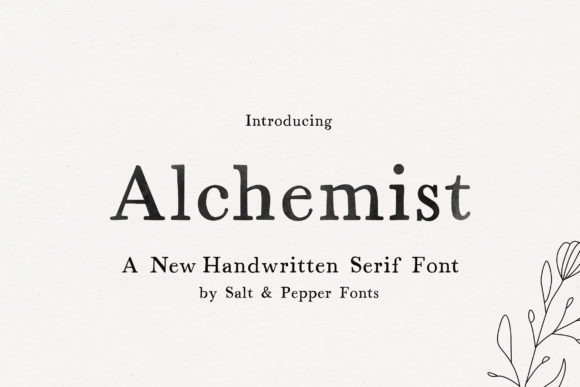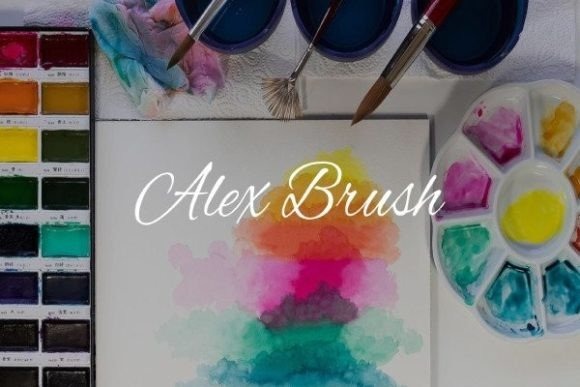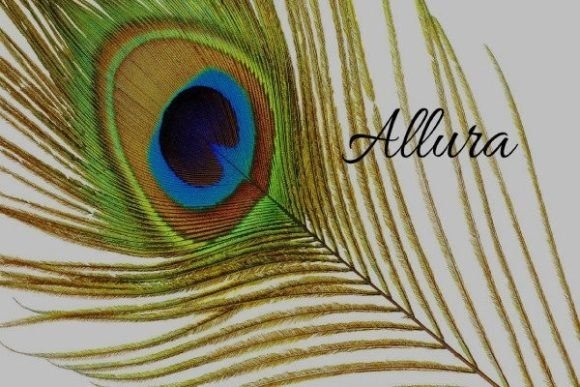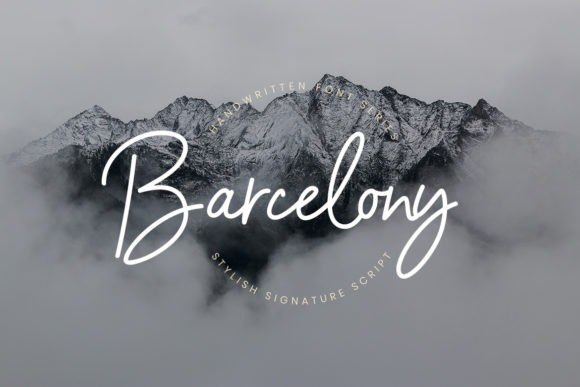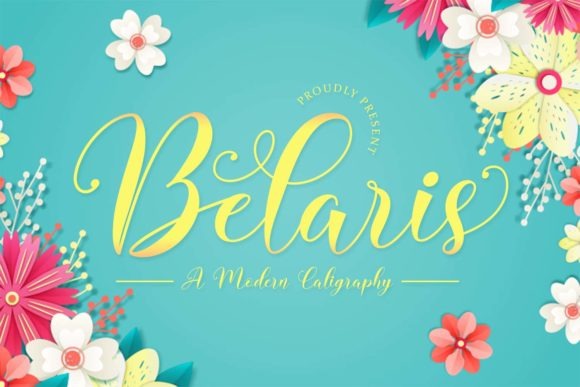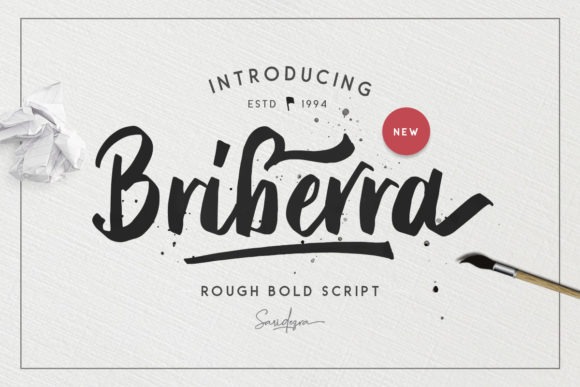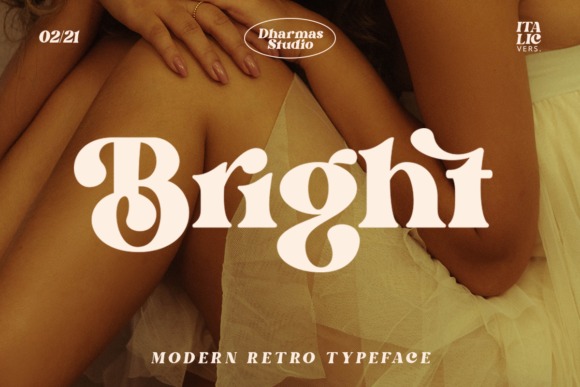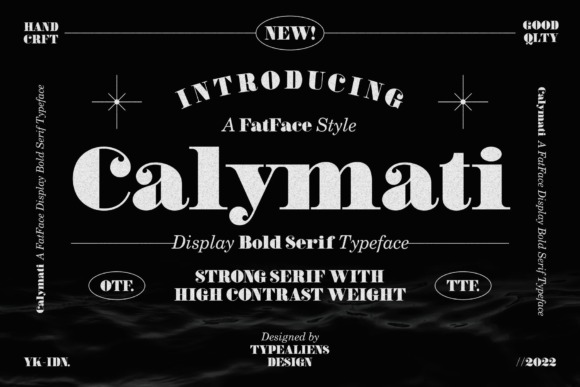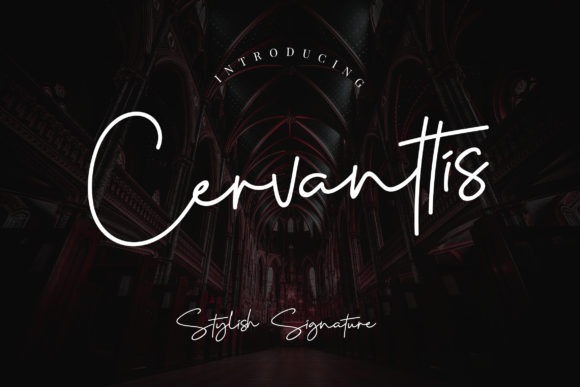
Choosing the Best Canva Fonts for Professional Branding
The best Canva fonts for professional branding aren't always the safest or most corporate-looking typefaces. I look for fonts with enough personality to make a brand recognizable while still staying readable across logos, social graphics, packaging, presentations, and other everyday Canva designs.
For this list, I've mixed refined serifs, clean sans serifs, signature scripts, and a few stronger display faces. The goal is versatility rather than collecting 25 fonts that all create the same polished-luxury aesthetic.
If you want a short answer: Devroye, Soria, Sauvage, Evogria, and Lanche are my strongest picks for restrained professional branding, while Barcelony, Allura, Cervanttis Script, and Alex Brush are better when a brand needs a personal signature accent. For most Canva brand systems, I would use the decorative font for logos or headlines and pair it with a simpler typeface for supporting copy.
| Font | Best for | Type |
|---|---|---|
| Devroye | Luxury and wellness brands | Serif |
| Soria | Beauty and editorial branding | Serif |
| Sauvage | Minimal premium identities | Sans serif |
| Evogria | Modern corporate logos | Geometric sans serif |
| Lanche | Fashion and packaging | Serif |
| Alchemist | Artisan and apothecary brands | Handwritten serif |
| Jolie | Minimal creative studios | Serif |
| Bright | Retro-modern branding | Serif |
| Calymati | Heritage-style labels | Vintage serif |
| Chinook | Boutiques and signage | Bold display |
| Mantana | 1970s-inspired brands | Display |
| Magical Source | Playful premium brands | Decorative serif |
| Corona | Vintage display identities | Display |
| Clattering | Expressive lifestyle brands | Brush script |
| Barcelony | Personal and beauty branding | Signature script |
| Cervanttis Script | Hospitality and packaging | Handwritten script |
| Satisfy | Feminine lifestyle branding | Script |
| Briberra Script | Bold creative campaigns | Brush script |
| Serendipity | Artist and portfolio branding | Hand-drawn script |
| Alex Brush | Elegant logo accents | Calligraphy |
| Insolente | Independent creative brands | Handwritten script |
| Belaris | Friendly boutique identities | Script |
| Wild & Brave | Outdoor and artisan brands | Brush script |
| Allura | Luxury feminine branding | Script |
| Mallicot | Fashionable display logos | Script |
25 Best Canva Fonts for Professional Branding
1. Devroye
Devroye is a slim, sophisticated serif that I would consider for brands that want refinement without a heavily ornamental look. Its restrained structure makes it especially appealing for wellness studios, boutique consultants, premium service providers, and understated luxury identities.
My favorite use would be a wordmark or high-contrast headline paired with a plain sans serif for captions and body copy. Because the lettering is comparatively delicate, I'd avoid relying on it for tiny mobile text or information-heavy graphics.
Best for: luxury services, wellness branding, editorial logos
Key features: refined serif construction, slim proportions, sophisticated personality
2. Soria
Soria is an elegant serif influenced by Didot-style contrast and Art Nouveau character, making it a strong option for beauty, skincare, fashion, and editorial branding. It has enough visual drama for a logo while remaining much more controlled than an elaborate display face.
I'd use Soria when the desired impression is polished and fashion-conscious rather than warm or handmade. Thin details deserve breathing room, so this is a font I'd reserve for larger headings, packaging names, or logo treatments rather than long paragraphs.
Best for: beauty brands, fashion identities, editorial graphics
Key features: high-contrast serif, Art Nouveau influence, elegant vertical form
3. Sauvage
Sauvage is a refined sans serif that suits brands wanting a clean, premium identity without falling back on a completely neutral corporate font. Its relatively thin, consistent strokes make it particularly appealing for photography, architecture, fashion, and personal-brand wordmarks.
This is one of my picks for minimalist Canva layouts because the lettering can leave plenty of visual space around photography. For very small copy, however, I'd switch to a more conventional text face and keep Sauvage as the recognizable brand layer.
Best for: photography, fashion, minimalist brands
Key features: clean sans serif, slim strokes, premium visual tone
4. Evogria
Evogria is a geometric sans serif with thick lettering and a confident silhouette, making it one of the strongest options here for modern business branding. I'd consider it for technology, fitness, consulting, property, or product brands that need authority without looking overly traditional.
Its boldness gives short names and punchy headlines immediate presence in Canva. That same weight can feel heavy when repeated through a full design, so I'd contrast it with a lighter supporting typeface rather than making every text element Evogria.
Best for: modern businesses, bold wordmarks, digital campaigns
Key features: geometric structure, thick strokes, confident sans-serif styling
5. Lanche
Lanche is a creative serif with sharp, overlapping details that give otherwise elegant lettering a more distinctive identity. I like it for fashion labels, men's grooming brands, creative agencies, and premium packaging that needs a recognizable typographic hook.
Because its appeal comes from those unusual letter shapes, I'd keep surrounding layouts restrained. It is better suited to logos, titles, and short packaging text than dense paragraphs where the distinctive structure could become distracting.
Best for: fashion branding, packaging, creative studios
Key features: sharp serif details, distinctive overlaps, elegant display character
6. Alchemist
Alchemist is a handwritten serif with a typewriter-like personality that can make an otherwise polished brand feel more tactile and human. I would use it for contemporary apothecaries, natural skincare, handmade products, specialty coffee, or creative personal brands.
This isn't my pick for conservative corporate work, but it is useful when professionalism needs to coexist with an artisan feel. Pairing it with a very clean sans serif can keep the identity from drifting too far into rustic territory.
Best for: apothecary brands, artisan packaging, creative businesses
Key features: handwritten serif, typewriter character, organic visual texture
7. Jolie
Jolie is a minimalist serif with long, thin lines that can give creative branding a sleek editorial finish. It makes sense for photographers, production studios, boutique beauty businesses, stylists, and brands built around restrained monochrome layouts.
I especially like this type of font for large Canva covers where the typography can breathe over a simple image or dark background. Its fine strokes are less convincing at tiny sizes, so a sturdier companion font should handle captions and practical information.
Best for: creative studios, photography, minimalist beauty brands
Key features: thin serif lines, editorial appearance, clean display styling
8. Bright
Bright is a bold serif that blends contemporary branding energy with a noticeable retro flavor. I see it fitting creative agencies, podcast identities, lifestyle companies, independent retail brands, and social campaigns that need more personality than a restrained luxury serif provides.
I'd reach for Bright when a brand should feel confident and approachable rather than formal. Its stronger personality means it can date a visual identity faster than a neutral sans serif, so I'd make sure the retro influence genuinely matches the brand strategy.
Best for: lifestyle brands, podcasts, retro-modern campaigns
Key features: bold serif styling, playful proportions, retro influence
9. Calymati
Calymati is a bold vintage-style serif with curved forms and enough decorative detail to produce convincing heritage-inspired branding. My pick would be specialty food, barbershop, apparel, hospitality, or premium label designs where a classic badge aesthetic is part of the visual story.
It has more character than I'd want for a general professional-services brand, but that is precisely why it can be memorable in the right niche. Let Calymati dominate one key element rather than surrounding it with competing vintage fonts.
Best for: heritage labels, apparel, vintage hospitality branding
Key features: thick serif forms, curved details, strong vintage personality
10. Chinook
Chinook is a bold display font that sits between vintage personality and contemporary boutique branding. Its substantial letterforms can carry store signs, promotional graphics, apparel designs, and logo badges without disappearing against busy Canva layouts.
I would choose Chinook for a brand that wants confidence and character more than delicacy. Because bold display typography can quickly dominate a design, the rest of the font system should be quiet, simple, and noticeably lighter.
Best for: boutiques, signage, branded merchandise
Key features: bold characters, vintage-modern balance, strong display presence
11. Mantana
Mantana is a funky, bold display font with a strong 1970s influence. I'd shortlist it for restaurants, music projects, creative retail, beverage brands, or youth-focused businesses that want a retro visual identity without leaning into distressed textures.
This font is intentionally expressive, so I wouldn't call it universally professional. It becomes a professional branding tool when the retro aesthetic is deliberate and consistently supported by the brand's colors, photography, spacing, and secondary type.
Best for: restaurants, music brands, retro retail
Key features: 1970s influence, bold display shapes, energetic personality
12. Magical Source
Magical Source is a playful serif with decorative swashes and glyphs, aimed at brands that need charm without turning completely cartoonish. I would consider it for children's boutiques, whimsical event businesses, story-driven products, or imaginative lifestyle brands.
It is more niche than my top corporate picks, but it can create a far more ownable identity for the right audience. I'd keep the swashes concentrated in the logo or major headline and use straightforward typography everywhere customers need to read quickly.
Best for: children's brands, whimsical events, playful retail
Key features: decorative serif, swashes, imaginative glyph styling
13. Corona
Corona is a vintage-style display font with distinctive lettering that can give a logo an established, crafted appearance. It fits brand concepts involving heritage, entertainment, food and beverage, apparel, or nostalgic packaging particularly well.
I'd treat Corona as a statement typeface, not an all-purpose brand font. When used sparingly on a wordmark or campaign heading, it has far more impact than when its decorative character is repeated across every Canva text box.
Best for: heritage branding, nostalgic packaging, display logos
Key features: vintage styling, distinctive characters, strong display emphasis
14. Clattering
Clattering is a handmade brush script with free-flowing strokes and noticeable contrast between thick and thin curves. I like it for lifestyle, food, creative-services, event, and personal brands that need something more expressive than an immaculate signature font.
Its energy is useful for short logo names and promotional headlines, but I'd avoid it for dense copy or very formal industries. A geometric sans serif beside Clattering can give the handmade lettering enough structure to still feel intentional.
Best for: lifestyle branding, creative services, expressive campaigns
Key features: handmade brush strokes, thick-thin contrast, relaxed movement
15. Barcelony
Barcelony is a smooth signature script with a monoline feel that suits personal brands especially well. I'd use it for photographers, beauty professionals, coaches, wedding businesses, or boutique service providers that want the logo to resemble a polished handwritten signature.
This is one of the scripts I'd keep almost entirely out of body text. Its strength is the personal impression it creates in a name, watermark, or short accent, while a neutral sans serif can handle practical communication.
Best for: personal brands, beauty businesses, photography
Key features: signature style, smooth monoline feel, handwritten personality
16. Cervanttis Script
Cervanttis Script is a natural-looking handwritten typeface with deliberately varied strokes that make it feel less mechanical than pristine calligraphy. That character suits restaurants, boutique hospitality, wine-related branding, specialty foods, and premium product packaging.
I'd choose Cervanttis when a brand story depends on craftsmanship or personal service. The irregularity creates authenticity, but it also makes the font less appropriate for small labels containing ingredients, pricing, or other information that needs instant clarity.
Best for: hospitality, food packaging, artisan brands
Key features: natural handwriting, varied strokes, sophisticated informal tone
17. Satisfy
Satisfy is a connected script with a distinctly feminine and romantic personality. I see it fitting bridal businesses, florists, beauty services, personal stationery, boutique gifting, and lifestyle brands that want warmth rather than a sharp luxury aesthetic.
The connected letters create an appealing logo rhythm, but this is another case where restraint matters. I would use Satisfy for the brand name or brief accent copy and introduce a clean supporting font for menus, prices, captions, and calls to action.
Best for: bridal businesses, florists, feminine lifestyle brands
Key features: connected script, romantic tone, fluid lettering
18. Briberra Script
Briberra Script is a calligraphy-inspired brush font with thick, flatter strokes and decorative alternates. It can give marketing graphics a confident handcrafted look, making it suitable for apparel, creative campaigns, quote-based brands, restaurants, and casual lifestyle products.
I would skip it for brands that need an understated financial, legal, or corporate tone. For expressive businesses, though, its weight can create a strong Canva headline without requiring many extra graphic elements around it.
Best for: apparel, creative campaigns, lifestyle products
Key features: bold brush strokes, calligraphy influence, decorative alternates
19. Serendipity
Serendipity is a delicate hand-drawn script with an artistic character that can make a brand feel personal and creative. I'd consider it for illustrators, artists, photographers, independent makers, stationery brands, and portfolio identities where individuality matters more than corporate formality.
Its handmade appearance is the selling point, so I wouldn't over-polish the rest of the identity with equally decorative fonts. A neutral companion typeface and generous whitespace can help Serendipity remain the clear signature element.
Best for: artists, stationery brands, creative portfolios
Key features: hand-drawn lettering, delicate script style, artistic personality
20. Alex Brush
Alex Brush is a relatively clean calligraphy font that gives branding an elegant handwritten accent without the visual heaviness of a thick brush script. I like it for photographers, event professionals, beauty businesses, formal stationery, and premium personal brands.
Its calligraphic style is strongest in short phrases and names. For Canva templates that will be reused by a team, I'd define Alex Brush as a specific logo or accent font rather than giving everyone freedom to apply it to long blocks of text.
Best for: photography, event brands, elegant personal identities
Key features: clean calligraphy, graceful strokes, refined accent styling
21. Insolente
Insolente is a script font with human-looking strokes and an intentionally less standardized finish. I'd put it on my shortlist for independent fashion, music, photography, restaurants, creative studios, or personal brands that want to signal confidence and individuality.
This font has more attitude than conventional elegant scripts, which is useful when a business wants to avoid looking generic. It can feel overly casual in conservative sectors, so I'd judge it against the audience rather than assuming handwritten typography automatically feels premium.
Best for: fashion, creative studios, independent personal brands
Key features: human-style strokes, distinctive script rhythm, unconventional character
22. Belaris
Belaris is a flowing script with ligatures, stylistic alternatives, and an inviting handcrafted feel. It fits boutiques, wedding professionals, makers, cafes, gifting businesses, and approachable personal brands that don't want their identity to feel stiff.
I would use Belaris when warmth is a larger priority than authority. Its alternate forms can make a short logo feel customized, but the script style still benefits from a simple sans-serif partner for anything customers need to scan quickly.
Best for: boutiques, wedding businesses, handmade brands
Key features: flowing script, ligatures, stylistic alternates
23. Wild & Brave
Wild & Brave is a rustic brush font with rough painted strokes that immediately suggests movement, craftsmanship, and the outdoors. I would use it for adventure businesses, outdoor apparel, coffee brands, handmade goods, camps, and lifestyle products with a rugged identity.
The texture makes it memorable but also places it firmly outside polished corporate minimalism. That's not a drawback when the positioning is right; I would simply pair it with clean supporting typography so the entire brand doesn't become visually noisy.
Best for: outdoor brands, artisan products, adventure businesses
Key features: rough brush strokes, rustic texture, energetic handmade feel
24. Allura
Allura is an elegant script with thin, graceful lines that suit brands seeking a sophisticated feminine accent. I would consider it for luxury beauty, bridal services, fashion, premium stationery, photography, or personal branding where a polished signature style supports the positioning.
This is a font I'd give plenty of space rather than squeezing into crowded social graphics. Thin script lettering needs adequate size and contrast, and I would always pair it with a highly readable serif or sans serif for secondary communication.
Best for: luxury beauty, bridal branding, premium personal brands
Key features: thin script strokes, elegant flow, sophisticated feminine tone
25. Mallicot
Mallicot is an expressive script with varied strokes and baselines that can make a short wordmark look more spontaneous and fashion-forward. I would use it for boutiques, beauty professionals, lifestyle labels, creative events, packaging accents, and independent brands with a stylish informal voice.
Its irregular rhythm is visually interesting, but that also limits its usefulness for functional copy. I'd reserve Mallicot for the memorable part of the identity and give product details, website graphics, and social captions to a quieter companion font.
Best for: boutiques, beauty brands, lifestyle packaging
Key features: varied baseline, expressive strokes, stylish script personality
Frequently Asked Questions
What are the best Canva fonts for professional branding?
The best Canva fonts for professional branding are readable, distinctive, and appropriate for the personality of the business. From this list, Devroye, Soria, Sauvage, Evogria, and Lanche are especially strong for polished identities, while Barcelony and Allura suit brands that need a signature-style accent. I would not choose solely by how impressive a font looks on a specimen image. Test it with your real company name and in the sizes you expect to use most often.
Can I upload downloaded fonts to Canva?
Yes, Canva supports custom font uploads through Brand Kit on eligible plans. You need to have the appropriate rights to use the font, and Canva may ask you to confirm those rights during the upload process. Once uploaded, a custom font can become part of a defined brand system instead of being selected manually for every design. Canva's current help documentation should be your reference for account-specific upload limits and supported files.
Should I use a serif or sans-serif font for professional branding?
Either can look professional; the better option depends on the message your brand needs to send. Serifs often support classic, editorial, heritage, or luxury identities, while sans serifs tend to feel cleaner, more contemporary, and more direct. You can also combine the two. I frequently prefer a distinctive serif logo or headline with a simpler sans serif for supporting copy because the contrast creates hierarchy without adding unnecessary decoration.
Are script fonts professional enough for a business logo?
Script fonts can look professional in a business logo when the brand benefits from a personal, elegant, handmade, or creative tone. They are usually most effective on short names and should not be expected to handle every piece of text in the brand system. I would pair a script logo with a straightforward serif or sans serif for menus, contact information, presentations, social captions, and other text where readability matters more than personality.
Final Thoughts on Professional Canva Typography
A professional brand does not need the most formal font; it needs typography that feels intentional and remains consistent wherever customers encounter it. My safest all-around picks are Devroye, Soria, Sauvage, and Evogria, while Alchemist, Barcelony, Wild & Brave, and Allura are stronger when the identity needs a more specific personality.
Whichever direction you choose, test the font in a logo, a social post, a presentation heading, and a small piece of supporting copy before committing. A typeface that survives those different situations is much more useful to a Canva brand system than one that only looks impressive in a large wordmark.